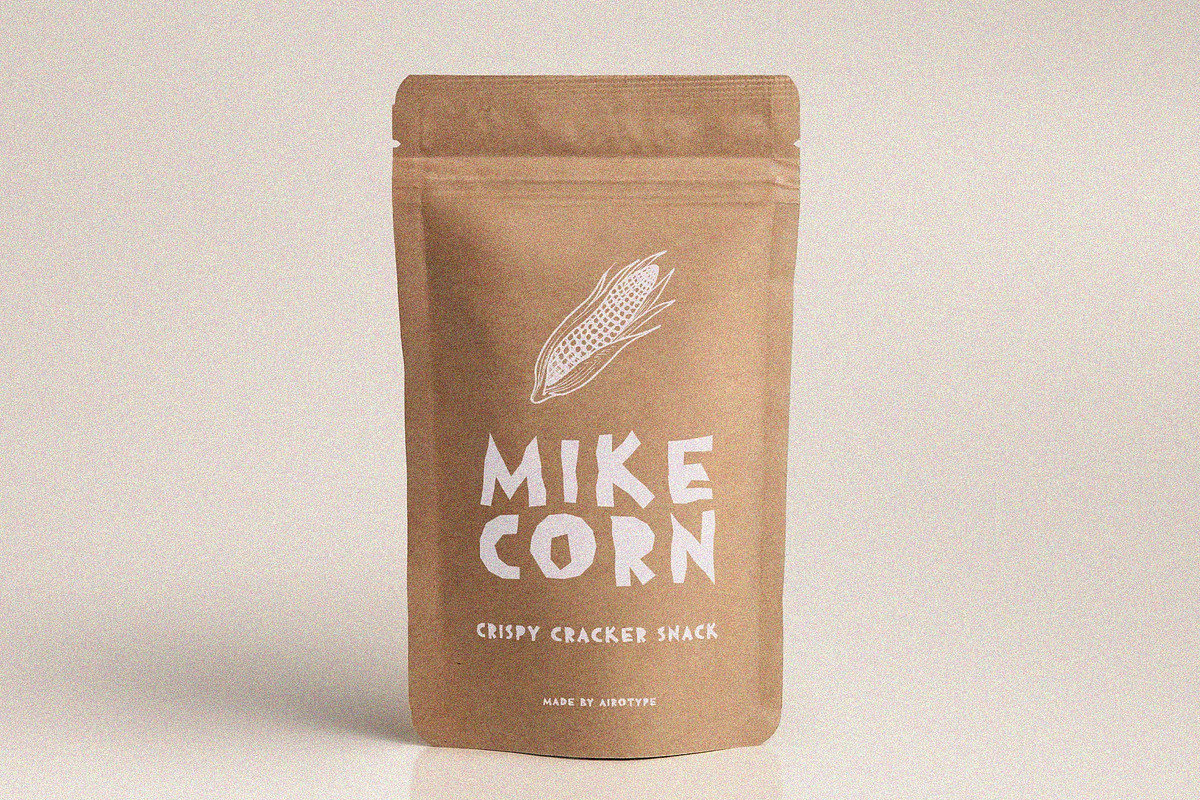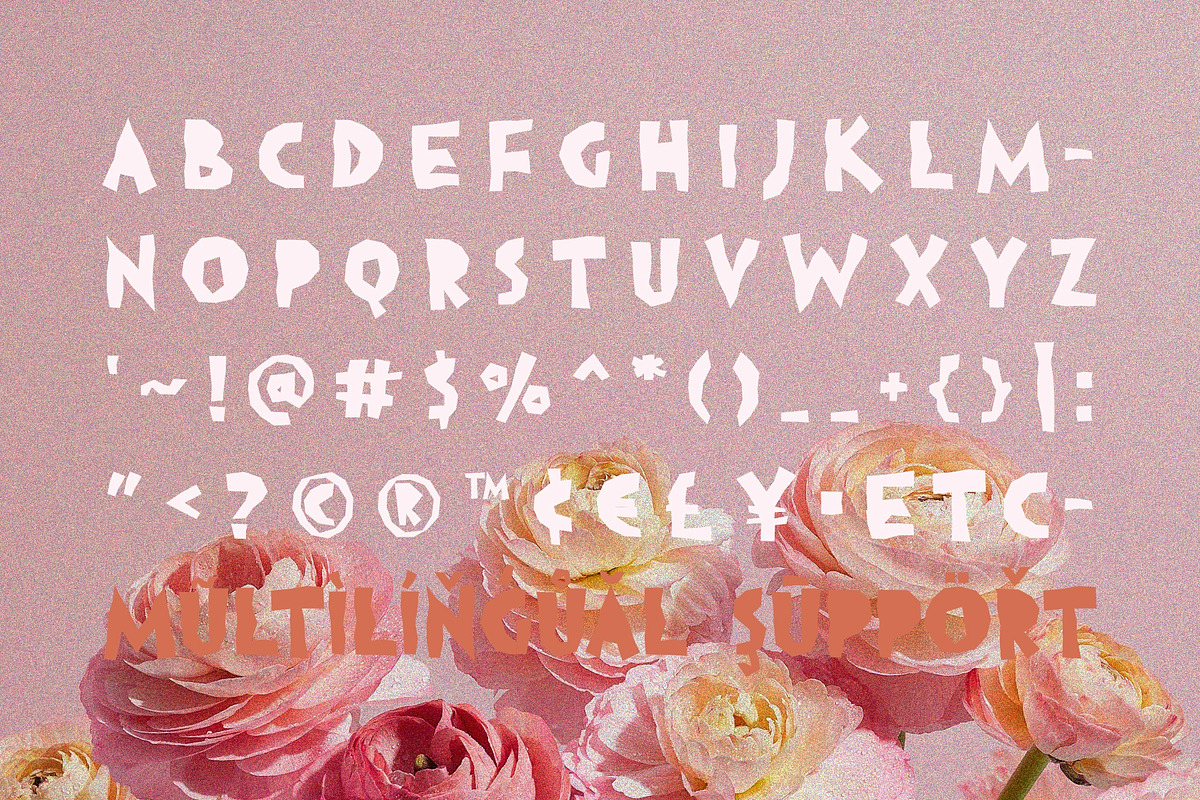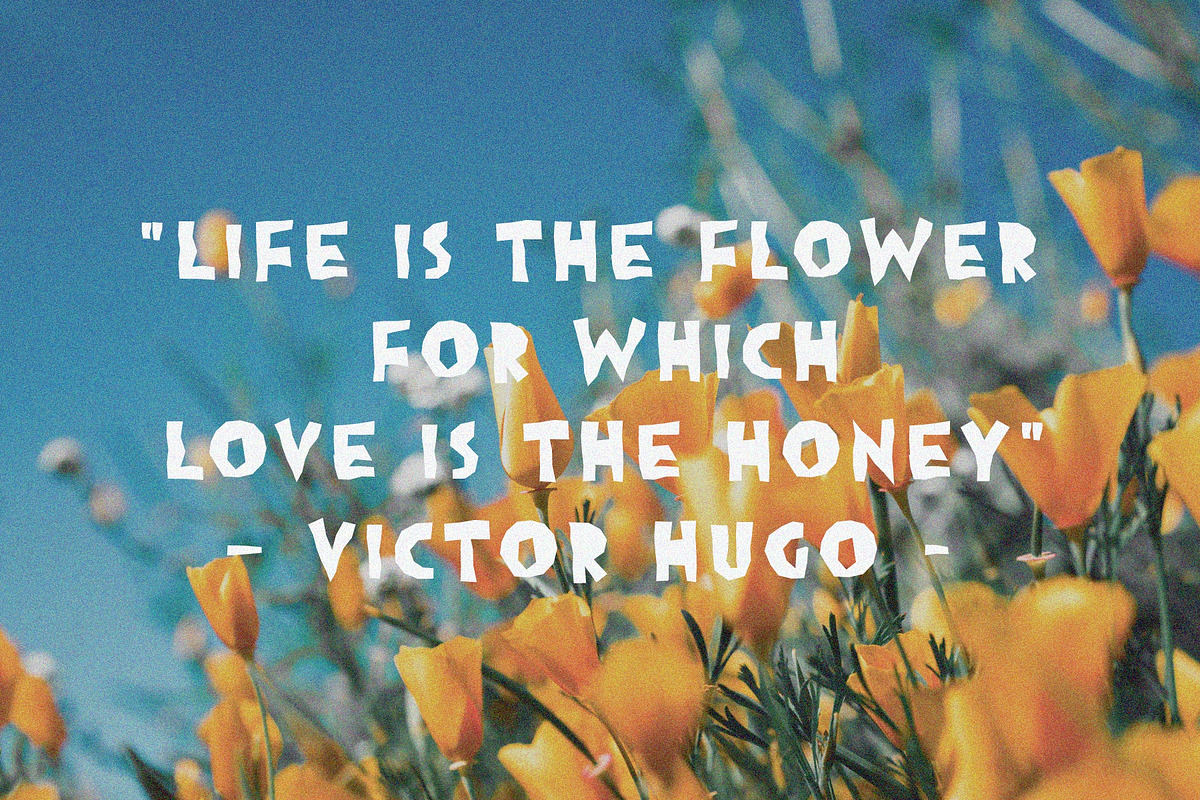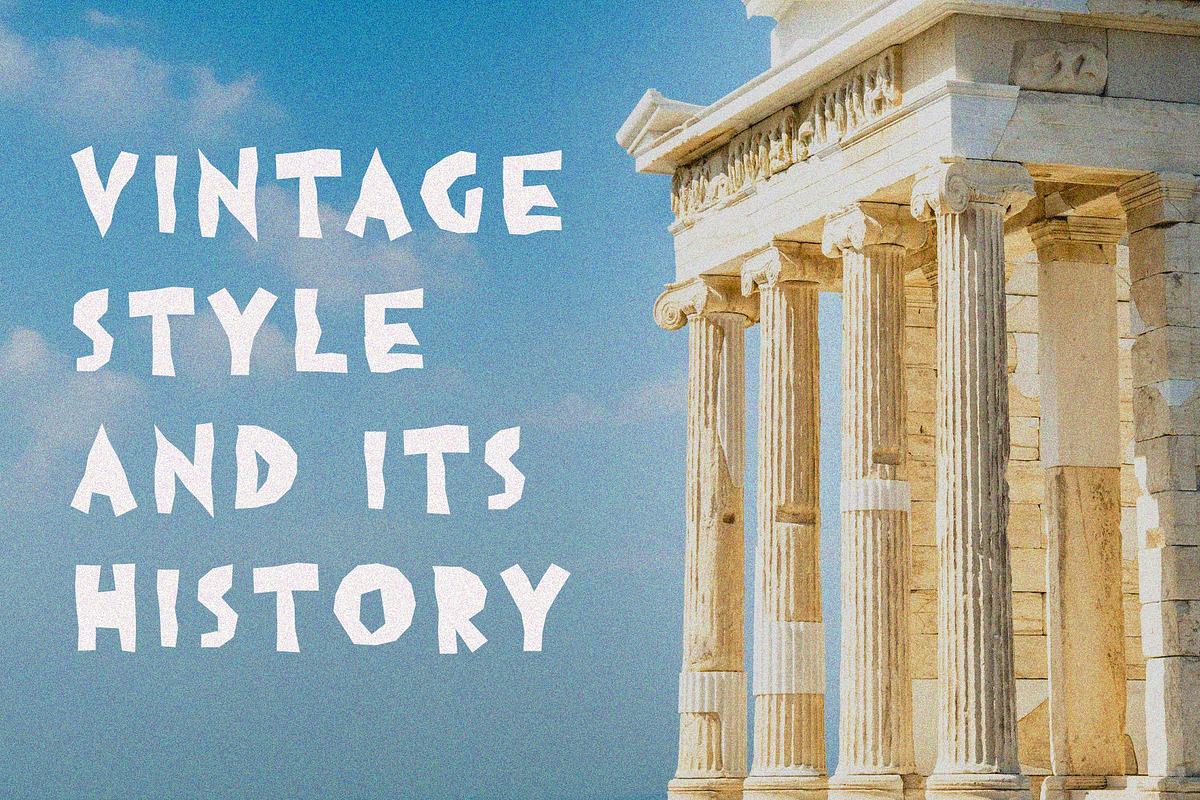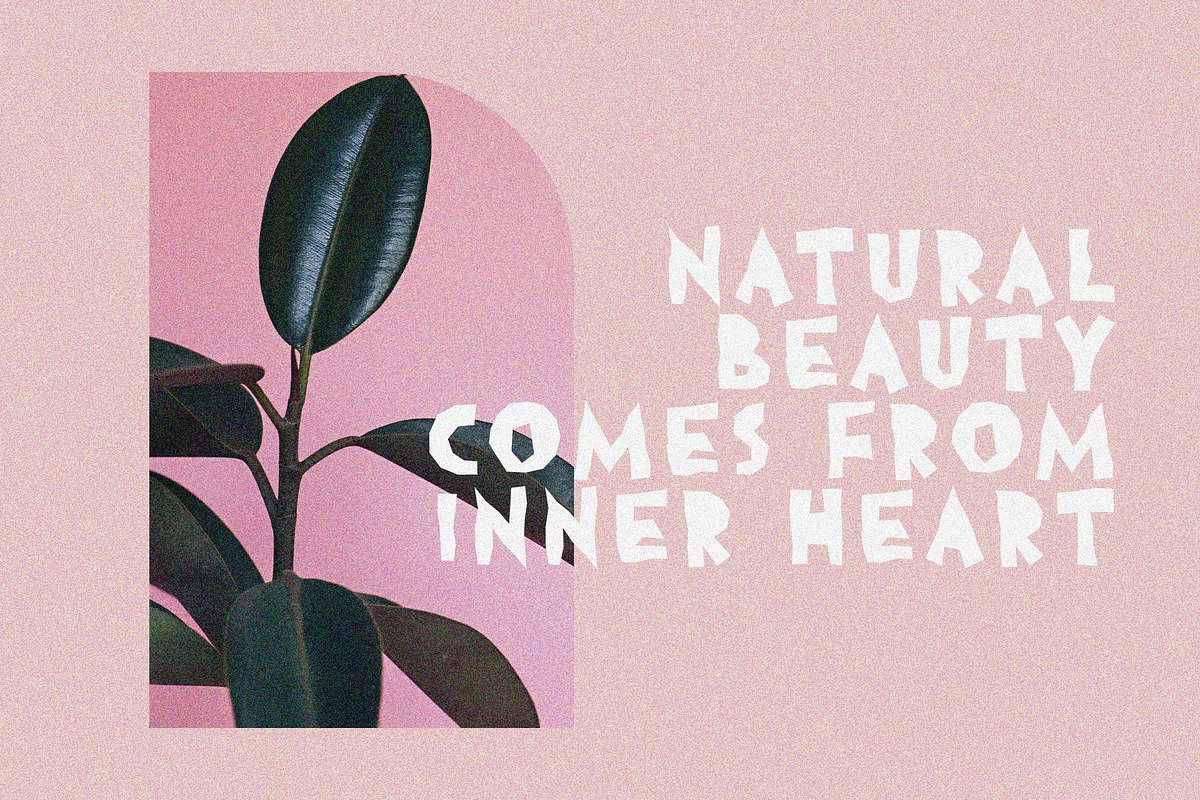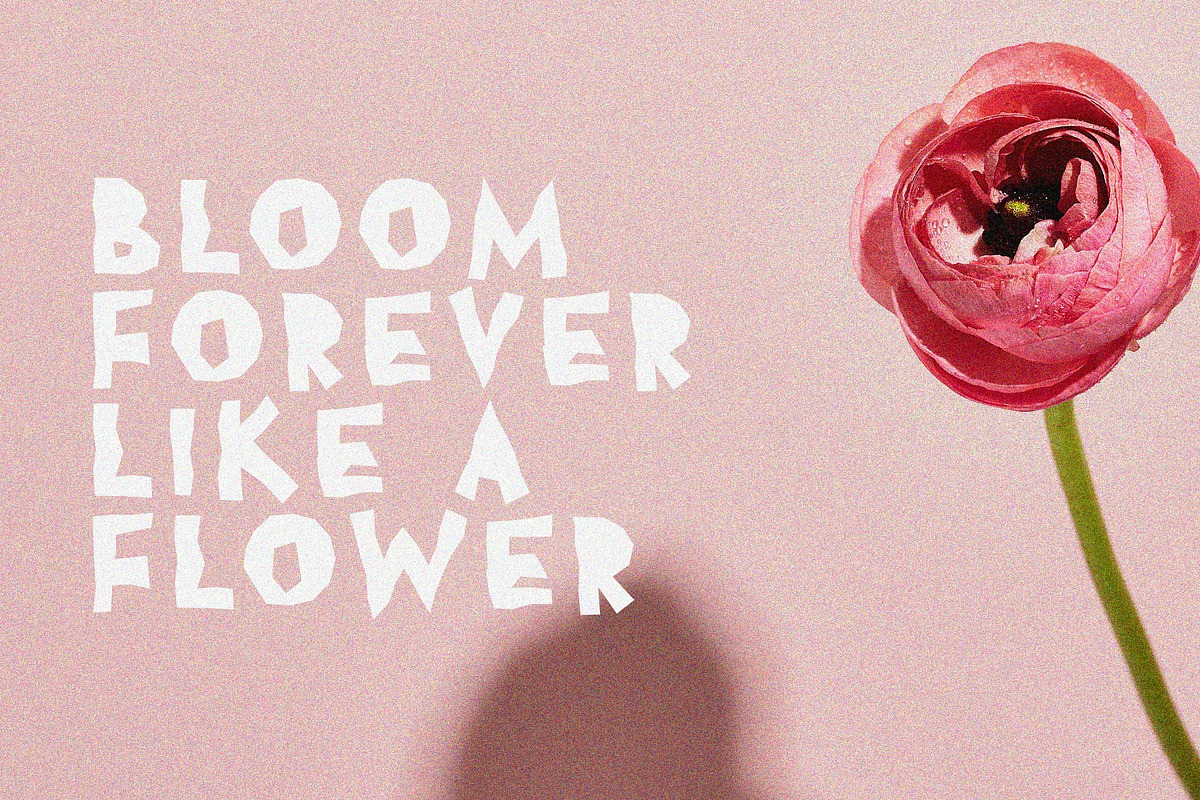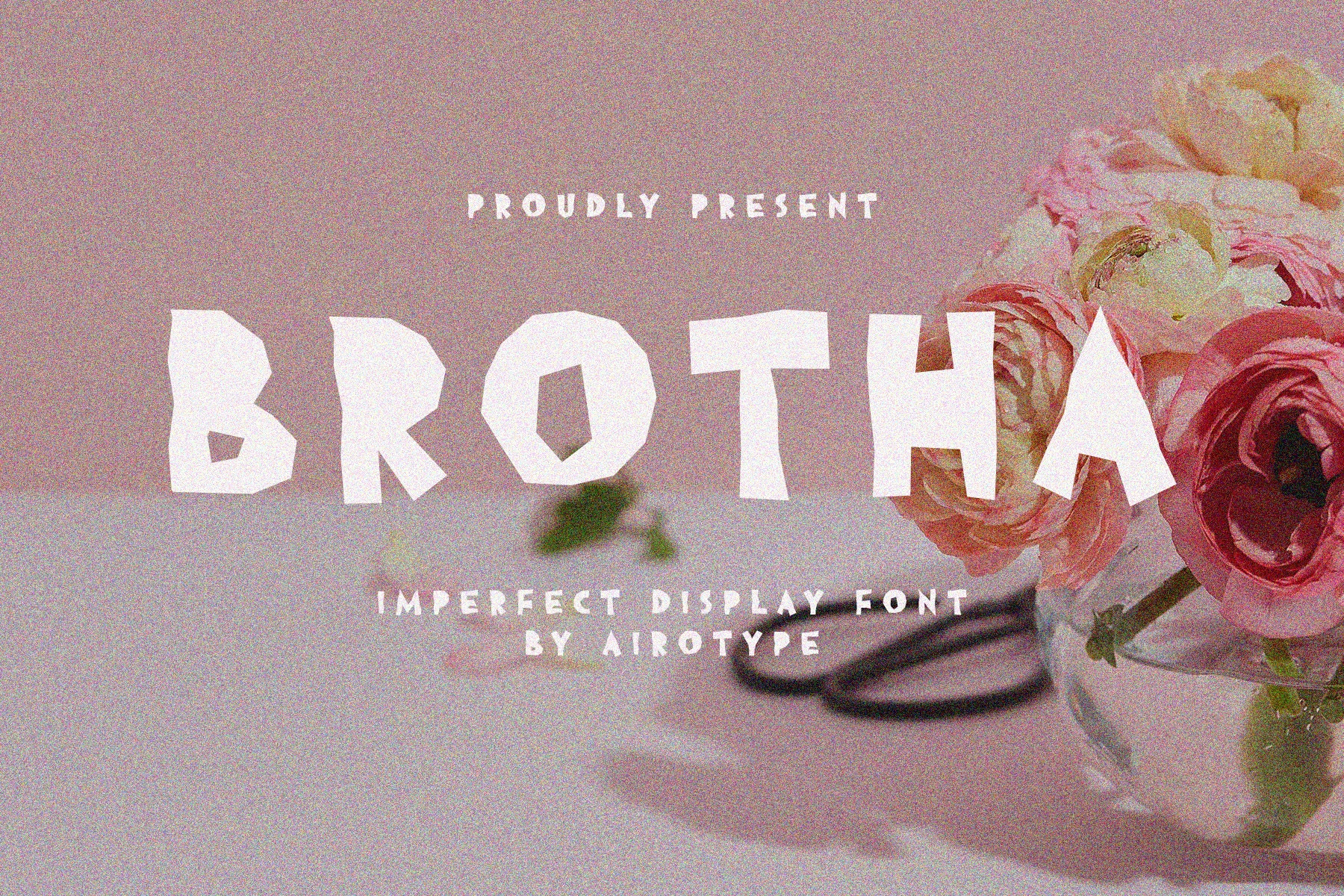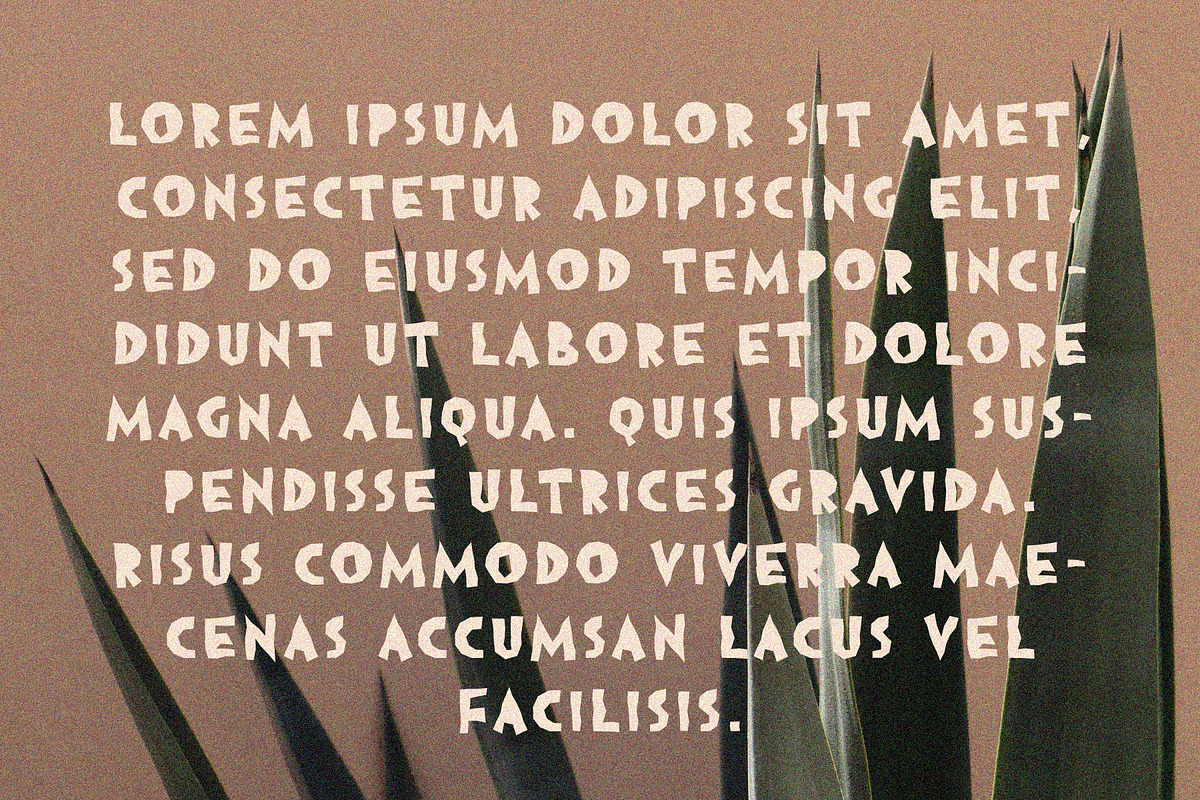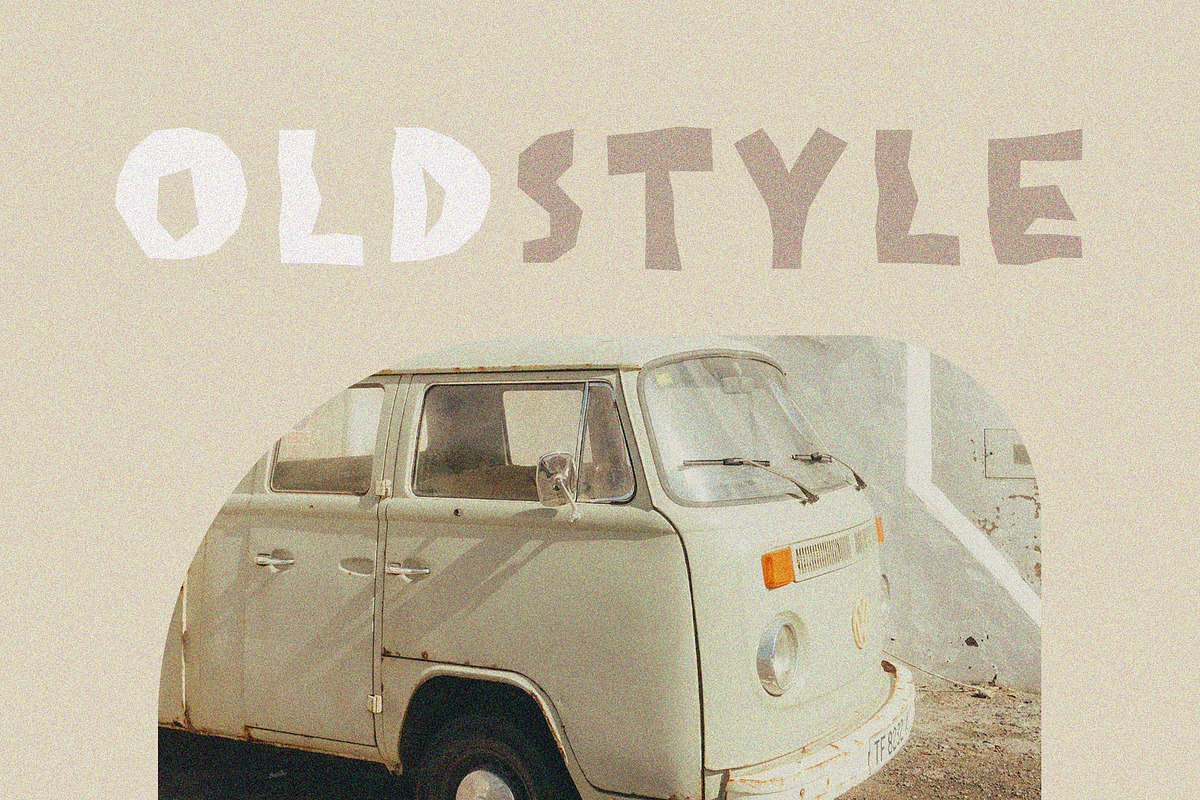
Brotha - All Caps Imperfect Font
Brotha is imperfect display font with sharp edge and asymmetric shape. the messy character enhance the playful and freedom vibes.
The unregular pattern of this font absolutely embraces the charming, expressive and creative touch into the design.
This font is suitable for any design with casual, cute, and freedom theme, such as kids design, creative branding, graphic design, t-shirt, posters, tumbler, and lots of physical or digital design.
- All Caps
- Most Multilingual Accent